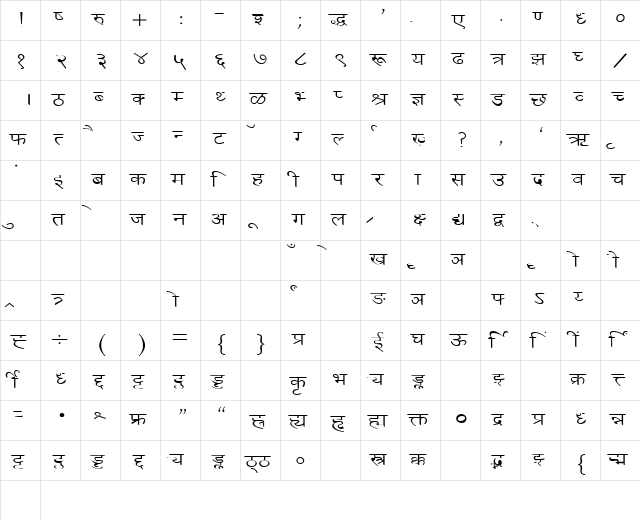
DevLys 030 Wide Normal
Design Context for DevLys 030 Wide Typeface
DevLys 030 Wide takes a measured approach to typography — its balanced proportions and neutral character make it a reliable workhorse for both digital and print work.